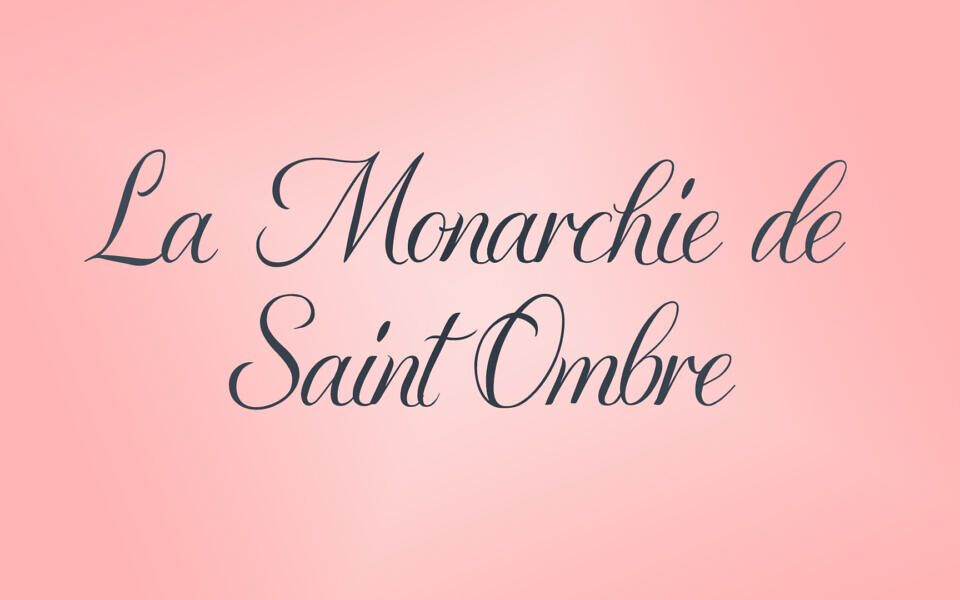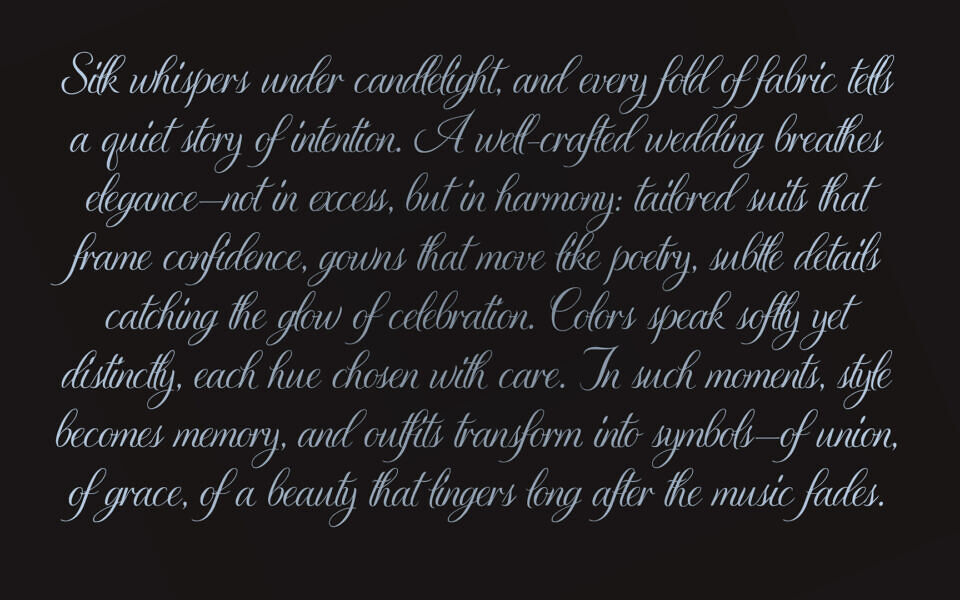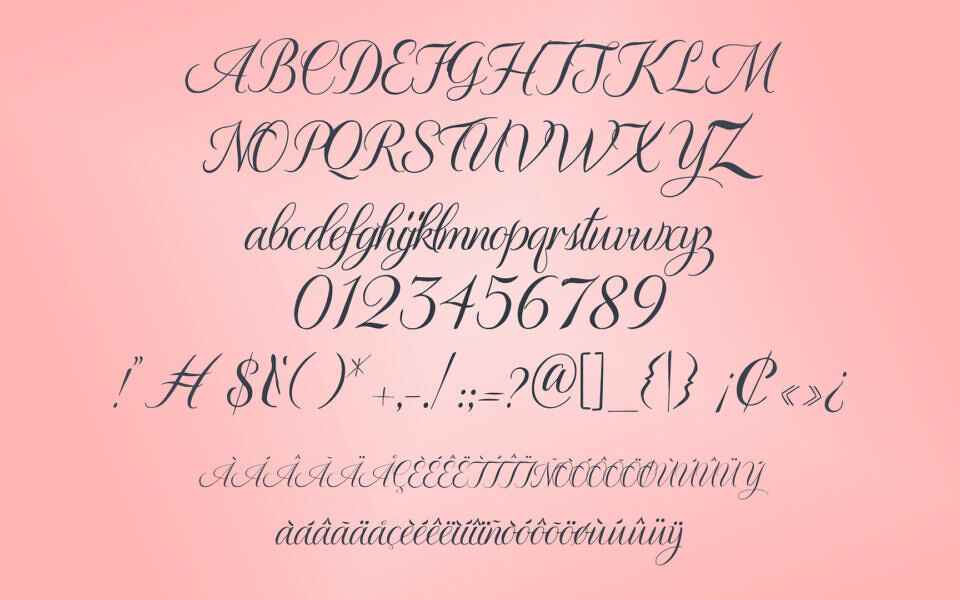
La Monarchie de Saint Ombre is an elegant calligraphy script font defined by flowing strokes, refined curves, and decorative flourishes. Inspired by classic royal aesthetics, it delivers a sense of luxury and sophistication. Perfect for invitations, branding, packaging, and fashion projects, it stands out in display use, adding an expressive and artistic touch to any design.